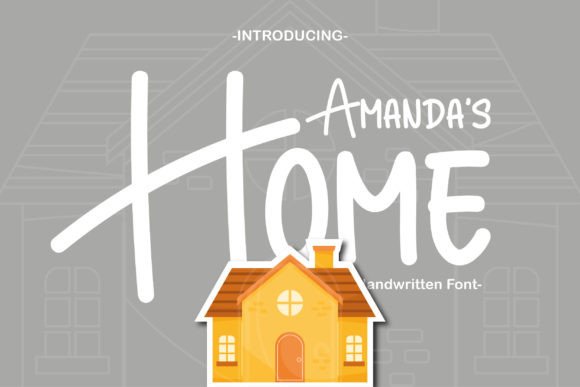
Discover the Charm of Amanda’s Home Font
Have you ever been in the middle of a design project, and suddenly, you’re stuck on finding the perfect font? I recall a recent experience where a client asked for a custom T-shirt design that required a very specific, handwritten feel. After scouring through countless font libraries, I stumbled upon Amanda’s Home, a beautiful handwritten font that instantly captured the warmth and familiarity I was looking for. In this article, we’ll dive into the intimate appeal of Amanda’s Home, its versatility, and how you can make the most of it in your designs.
A Personal Review: What I Love About Amanda’s Home
Amanda’s Home has quickly become one of my go-to fonts for a variety of design projects. Here are some aspects that I absolutely love:
- ✨ Unique and Personal Touch: This font exudes a sense of intimacy and personal charm, making it perfect for designs that require a human touch.
- ✅ Versatility: From treasured keepsakes to striking apparel, Amanda’s Home adapts beautifully to various mediums and design needs.
- 🔥 Sophistication and Authenticity: It adds an element of elegance and genuineness to your designs, setting them apart from more generic typefaces.
While Amanda’s Home is a stunning font, there are a few minor considerations to keep in mind:
- 🤔 Legibility at Small Sizes: Like many handwritten fonts, Amanda’s Home may lose legibility when scaled down too small. It’s best used at medium to large sizes for optimal impact.
- ⚠️ Overuse: Given its unique charm, it’s easy to overuse this font in a single design. Balance is key to maintaining its effectiveness.
The Story Behind Amanda’s Home
While the origins of Amanda’s Home might be shrouded in mystery, it’s easy to imagine a designer named Amanda, sitting at her home, pouring her heart into crafting a font that feels like a warm hug. Perhaps she wanted to create a typeface that would allow others to add a personal, human touch to their designs, bridging the gap between digital creations and personal expression.
| Font Name | Amanda’s Home Font |
| Author | Patlot Digital.Studio |
| Does Amanda’s Home support OpenType features? | Yes, it does, offering ligatures, stylistic alternates, and more to enhance your designs. |
| Is it easy to read at small sizes? | While it’s best used at medium to large sizes, its legibility can vary depending on the specific design and context. |
Amanda’s Home is more than just a font; it’s a way to infuse your designs with a sense of warmth, personality, and authenticity. Whether you’re a designer, crafter, or hobbyist, this beautiful handwritten font has the potential to elevate your projects and make them truly memorable.